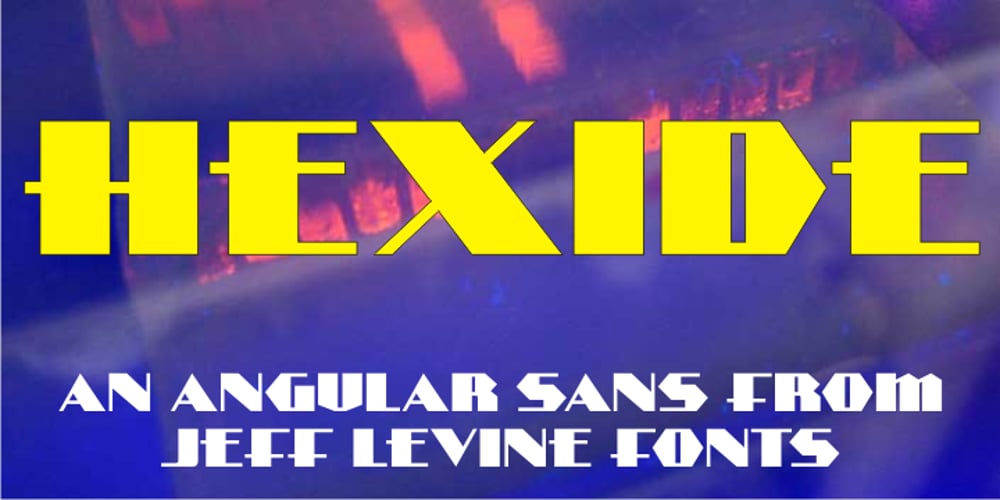
Hexide JNL Font Family was designed by Jeff Levine and published by Jeff Levine. Hexide JNL contains 1 styles and family package options. Hexide JNL was modeled and modified from an original design created by the late sign artist Alf R. Becker for Signs of the Times® Magazine. Thanks to Tod Swormstedt of ST Publications, Inc. and the American Sign Museum of Cincinnati, Ohio for providing the reference material used to make this font.